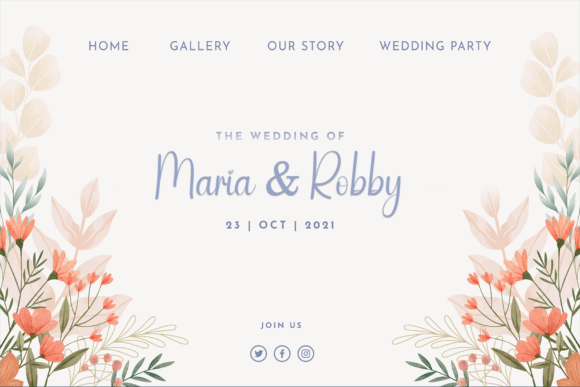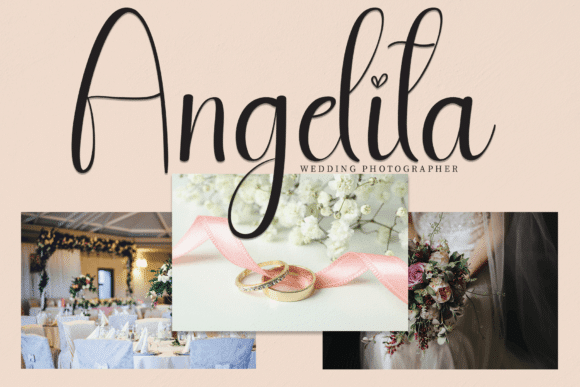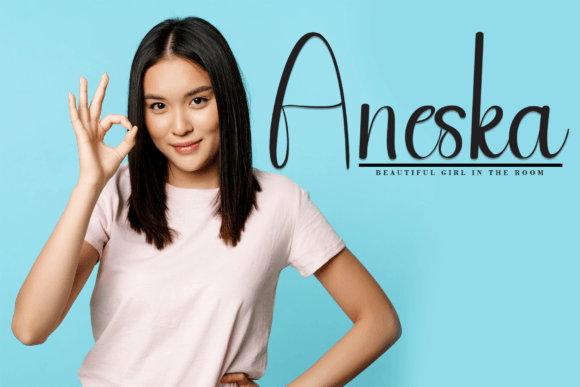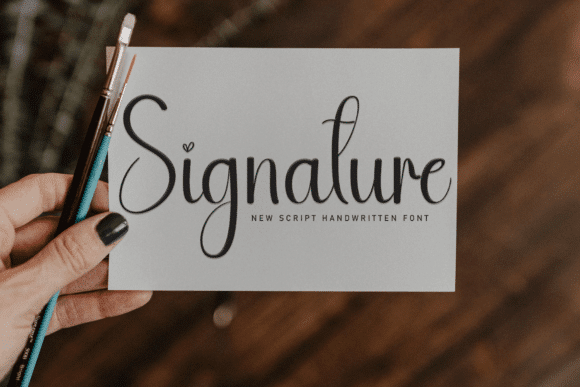
The Junggle Font Font
The Junggle is a sweet and friendly handwritten font. Cute and fun, this font is ideal for writing wedding invitations, cards, or any other design that might need a fun touch!